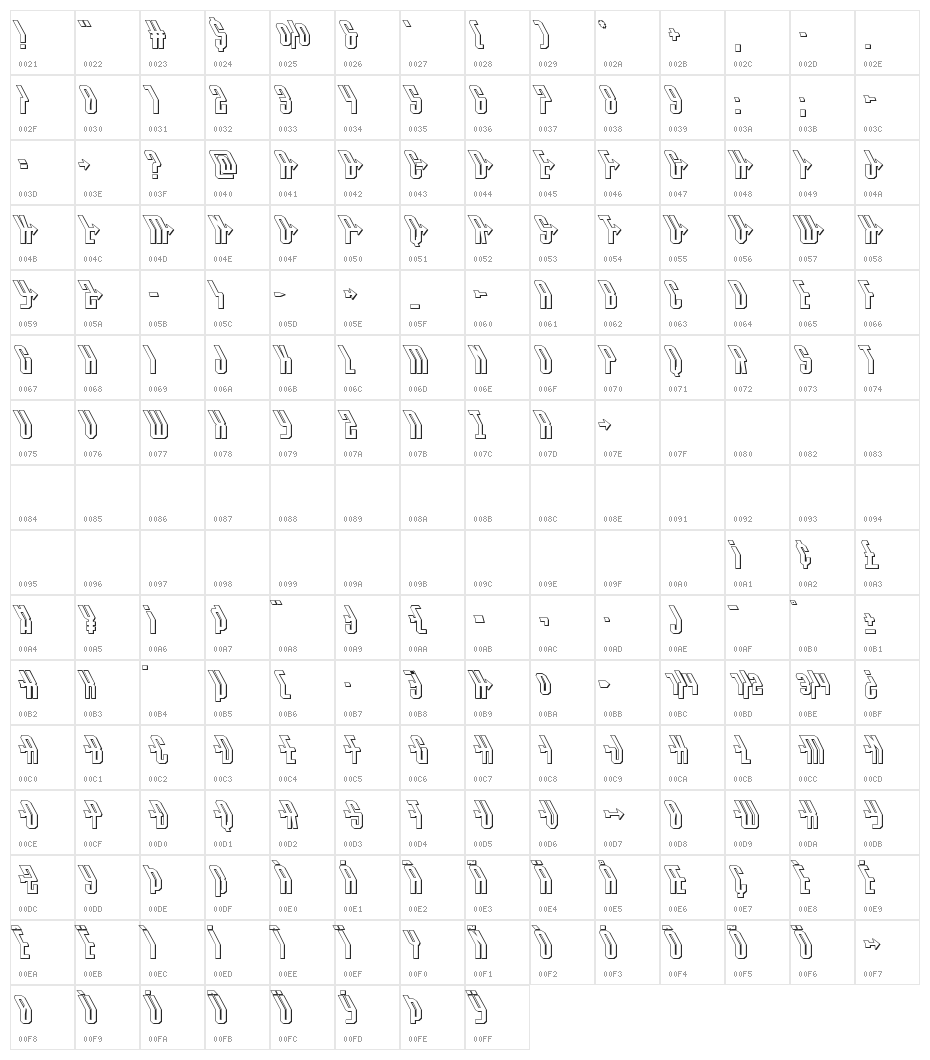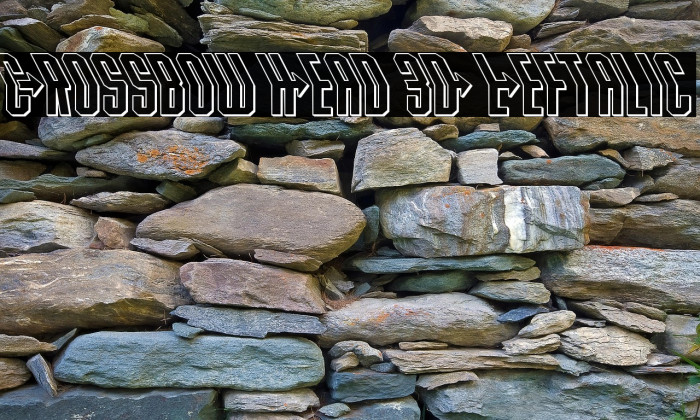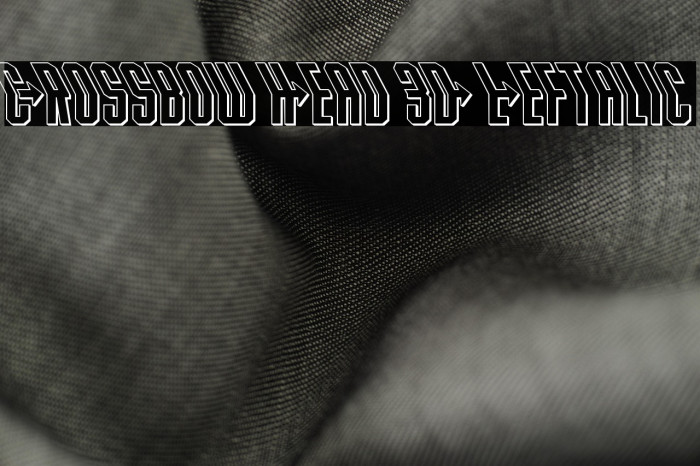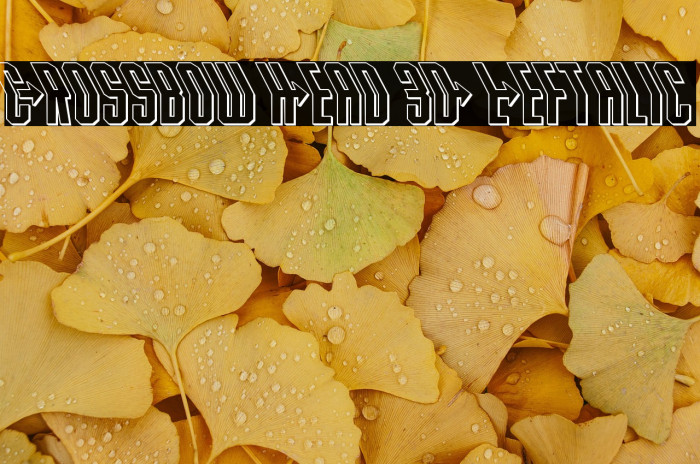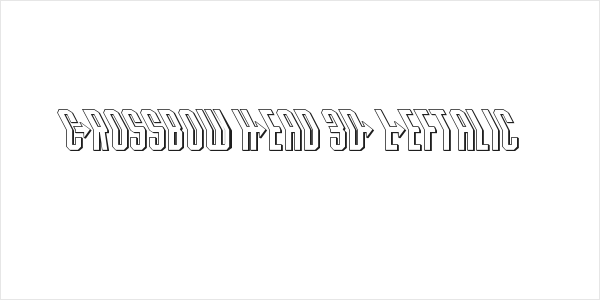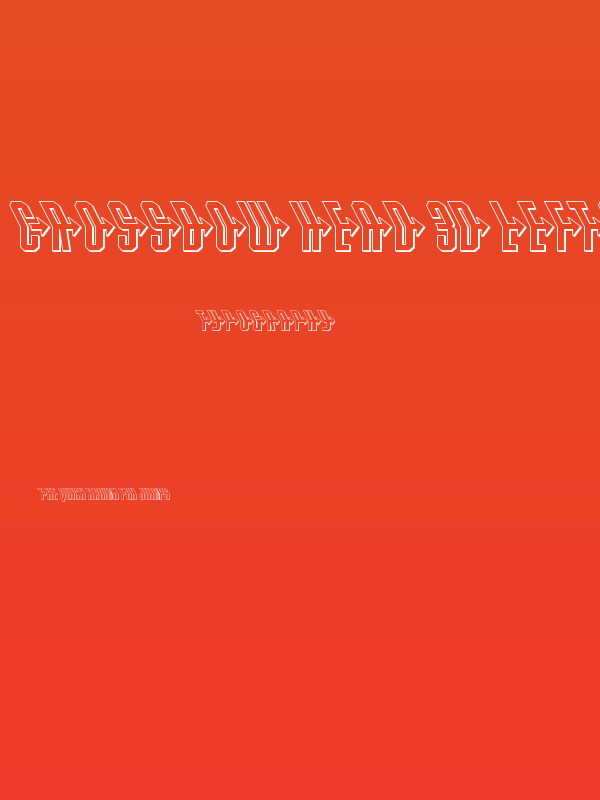
Crossbow Head 3D Leftalic Font
Crossbow Head 3D Leftalic Description
This font features a bold, three-dimensional design with a left-leaning italic style. The characters are outlined, giving them a striking, shadowed appearance that enhances their depth. The uppercase and lowercase letters maintain a consistent geometric structure, with sharp angles and clean lines. Numbers and special characters follow the same design principles, ensuring uniformity across the entire set. The font's unique style makes it stand out, suitable for projects that require a modern and edgy look.